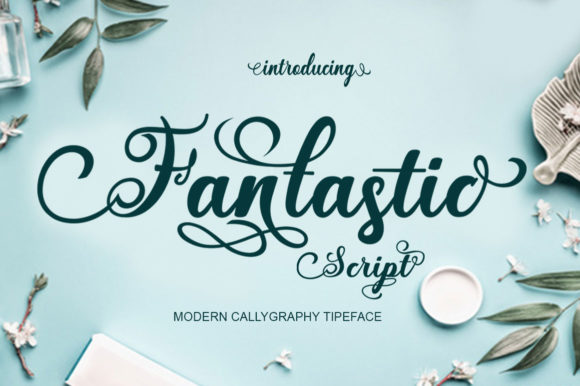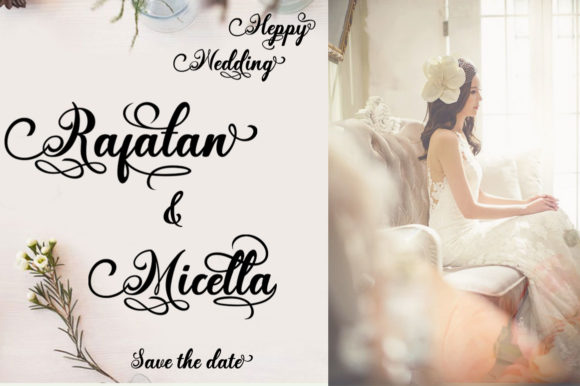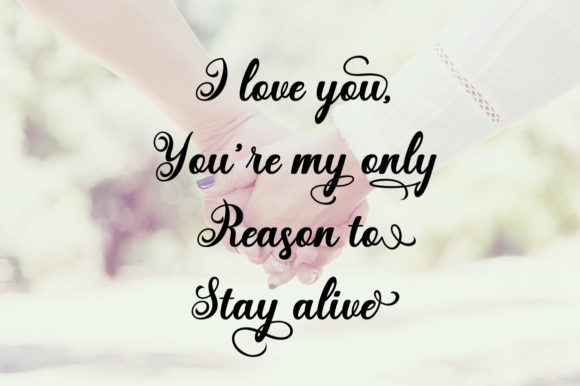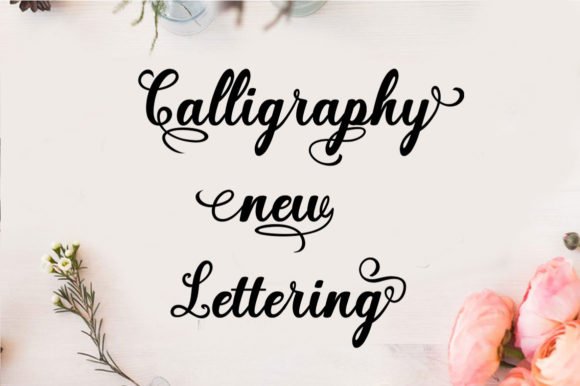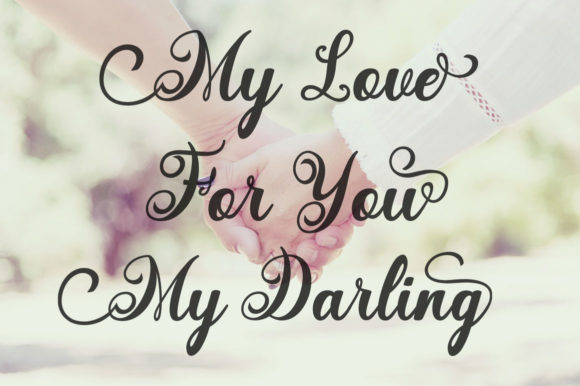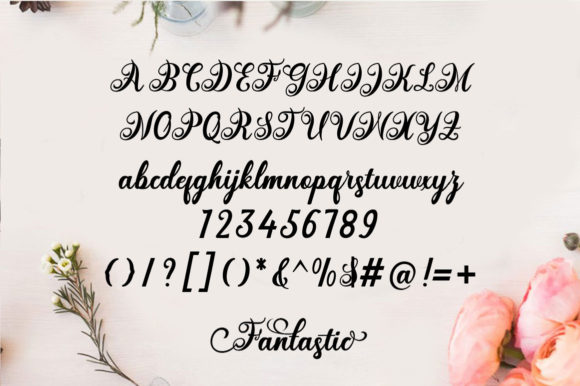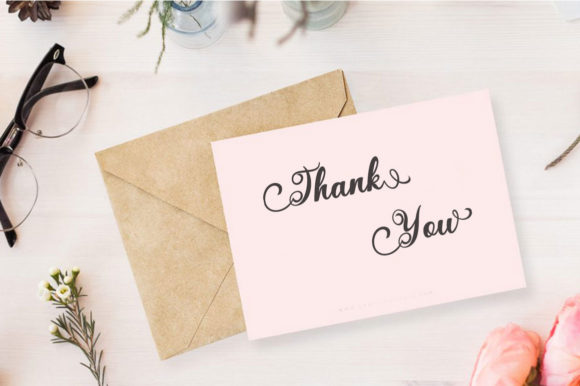
HomeScript FontsFantastic Script Font Script Fonts Fantastic Script Font FacebookXPinterestWhatsApp Fantastic Script Font Poster 2 Fantastic Script Font Poster 3 Fantastic Script Font Poster 4 Fantastic Script Font Poster 5 Fantastic Script Font Poster 6 Fantastic Script Font Poster 7 About Fantastic Script Font Fantastic delivers smooth curves, stunning ligatures and bold swashes: A true standout script! DOWNLOAD NOW People also explored Brosqua Font Maligai Font Bold Script Font Bundle Vol 1 Rumpia Font Qolam Black Font Astagelo Font Have Patience Font Lovely Floristha Font The Girls Font 361 0 TagsFantastic Script Font Previous articleSobbers FontNext articleKagesha Font LEAVE A REPLY Cancel reply Comment: Please enter your comment! Name:* Please enter your name here Email:* You have entered an incorrect email address! Please enter your email address here Website: Save my name, email, and website in this browser for the next time I comment. Personal Use Free Banana Valentine Personal Use Free Read more about this font Romansya Personal Use Free Read more about this font BD Nokio Personal Use Free Read more about this font Breather Personal Use Free Read more about this font BLOG How to Cut Any Font on Cricut: Convert a Font to SVG (Free) Turn any font into a clean SVG so it cuts crisp on Cricut - a quick 3-step workflow using a free font-to-SVG tool. 5 Fonts That Will Dominate Design Trends in 2026 Exploring Font Trends Free vs Paid Fonts: Why Investing in Premium Fonts Is Worth It